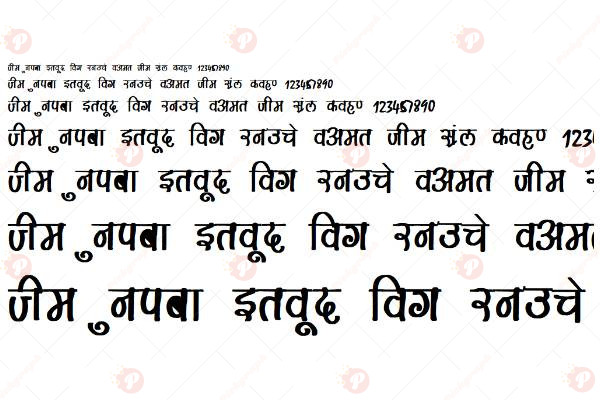
The Maya Bold Font is a powerful and eye-catching Devanagari typeface designed for Hindi and Sanskrit projects that need extra emphasis. With its bold and impactful strokes, this font is perfect for festival posters, banners, book covers, invitations, magazine headlines, devotional designs, and branding projects.
Its traditional yet modern look makes it versatile for both print and digital designs, ensuring clarity, readability, and cultural authenticity.
Script: Devanagari (Hindi / Sanskrit / Marathi / Nepali)
Style: Bold / Traditional / Display Typeface
Perfect for: Posters, Invitations, Temple Banners, Cultural Branding, Devotional Artworks, Social Media Graphics
Give your Hindi & Sanskrit designs a bold cultural touch with the Maya Bold Font.
| Optimum Size | Large (Display / Poster) |